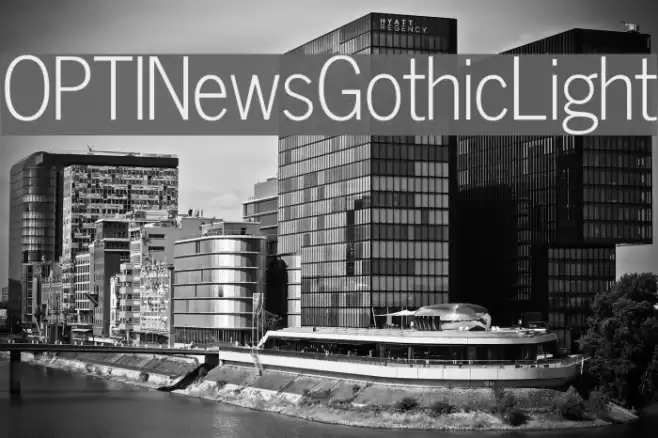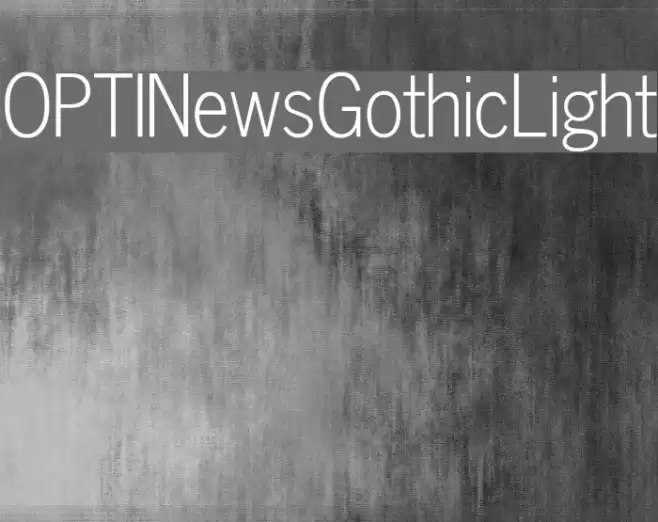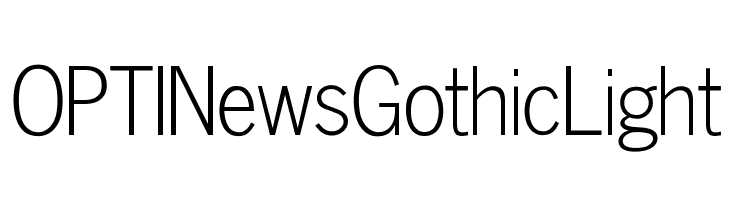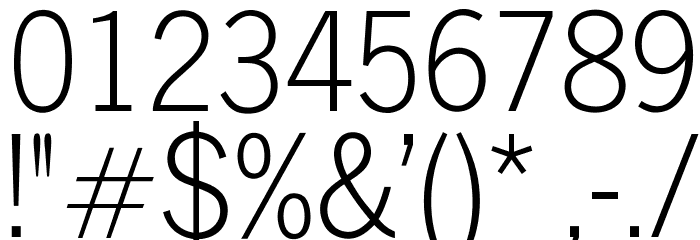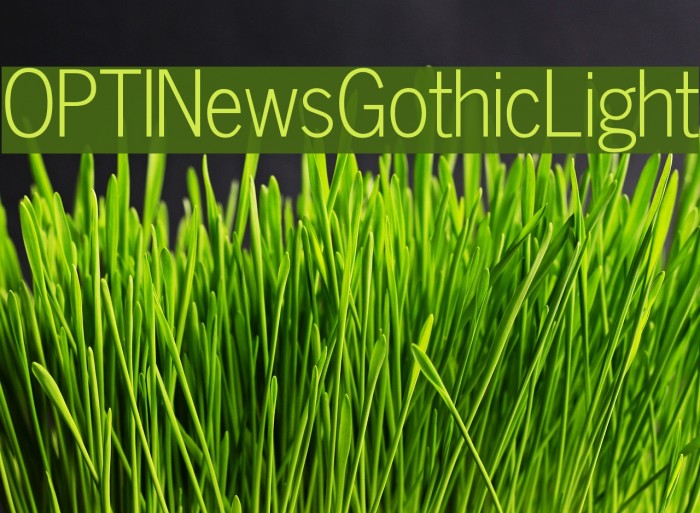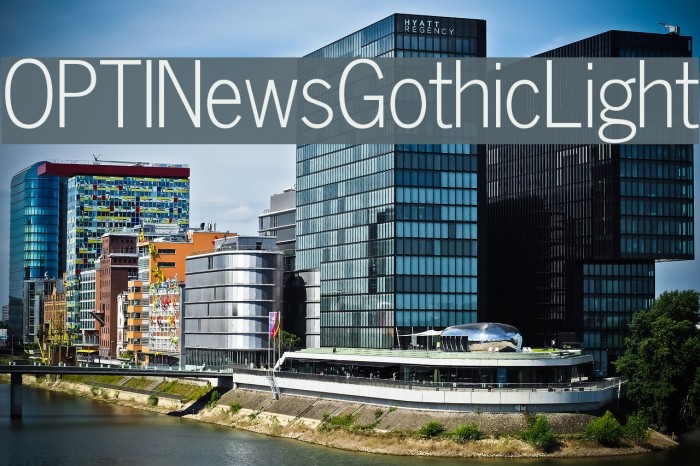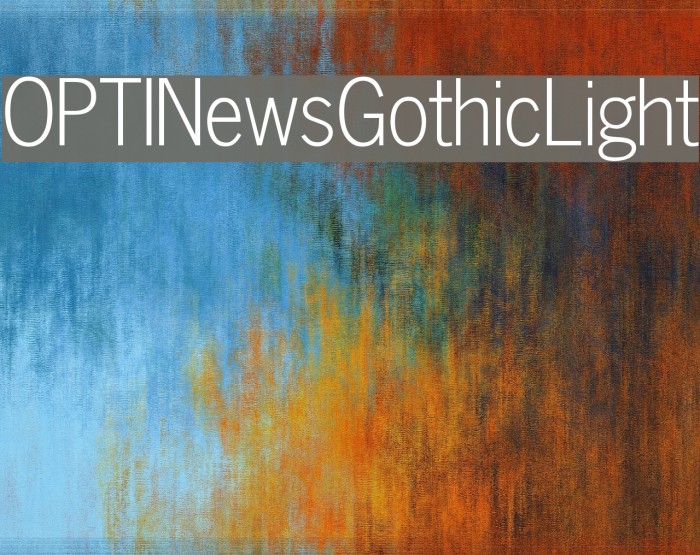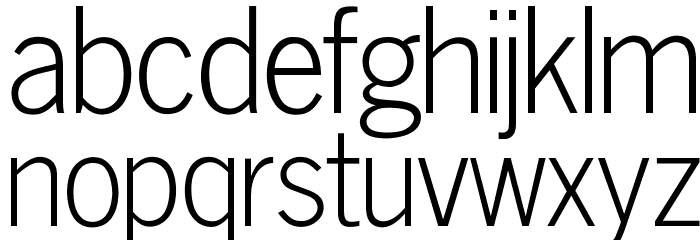
OPTINewsGothicLight
This font features a clean and modern sans-serif design with a light weight, making it ideal for a variety of applications. The characters are evenly spaced, providing excellent readability. The uppercase letters are tall and slightly condensed, while the lowercase letters maintain a consistent height, contributing to a uniform appearance. The numerals are clear and straightforward, ensuring they stand out in any context. Special characters are well-defined, adding versatility to the font's use. The overall style is sleek and professional, suitable for both digital and print media.
A clean, modern sans-serif font with a light weight and excellent readability.
- Proposed Projects: Ideal for use in digital media, corporate branding, editorial design, and user interfaces.
- Weight: Light
- Width: Condensed